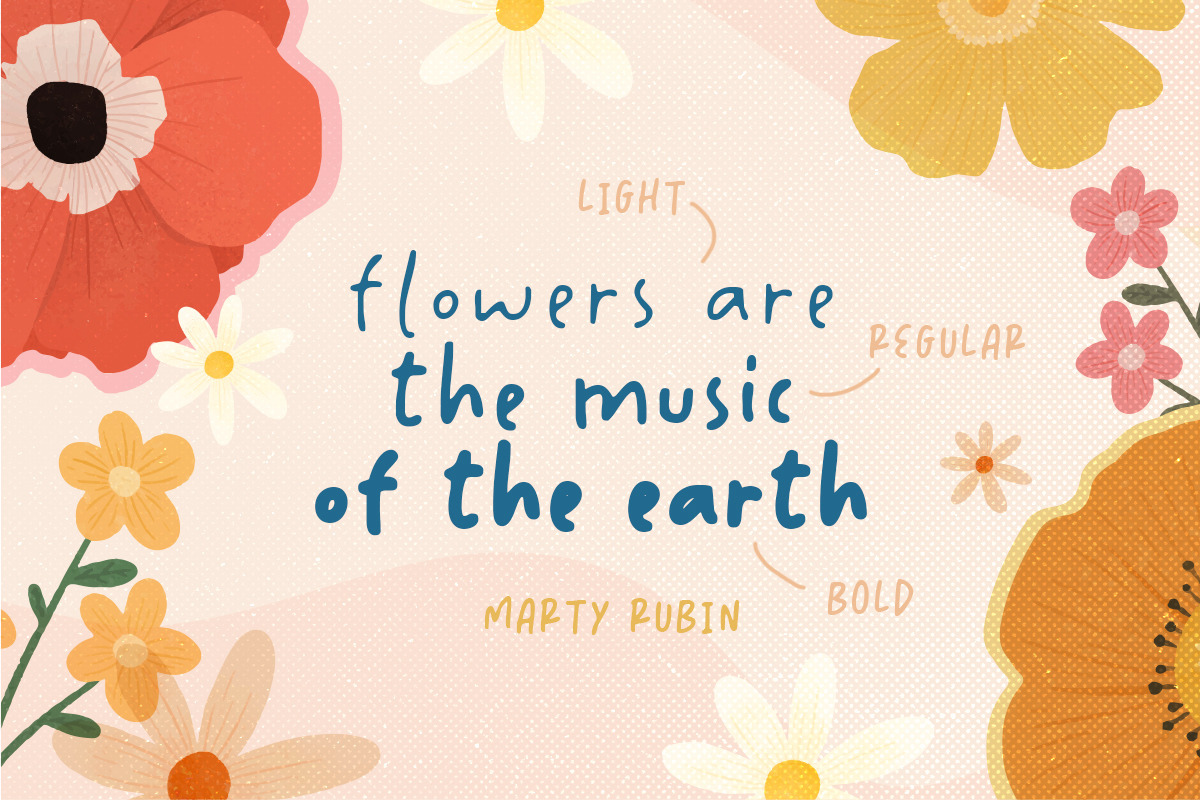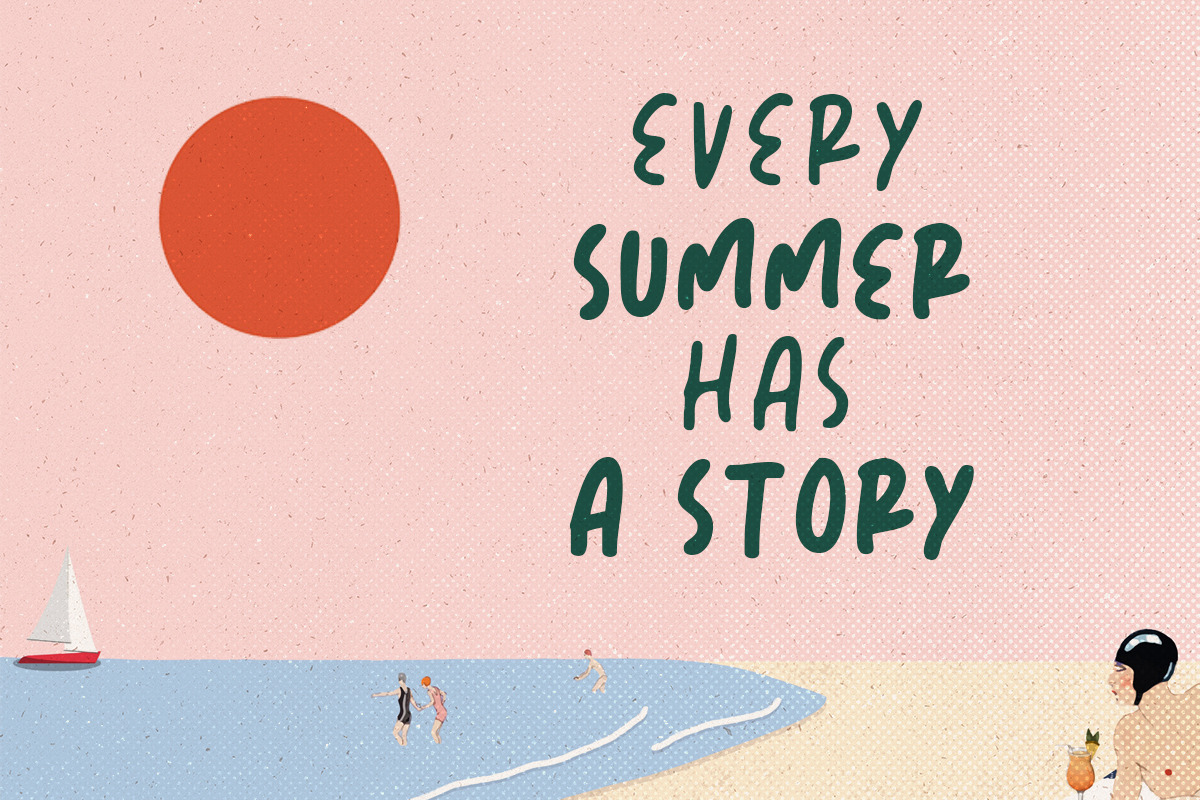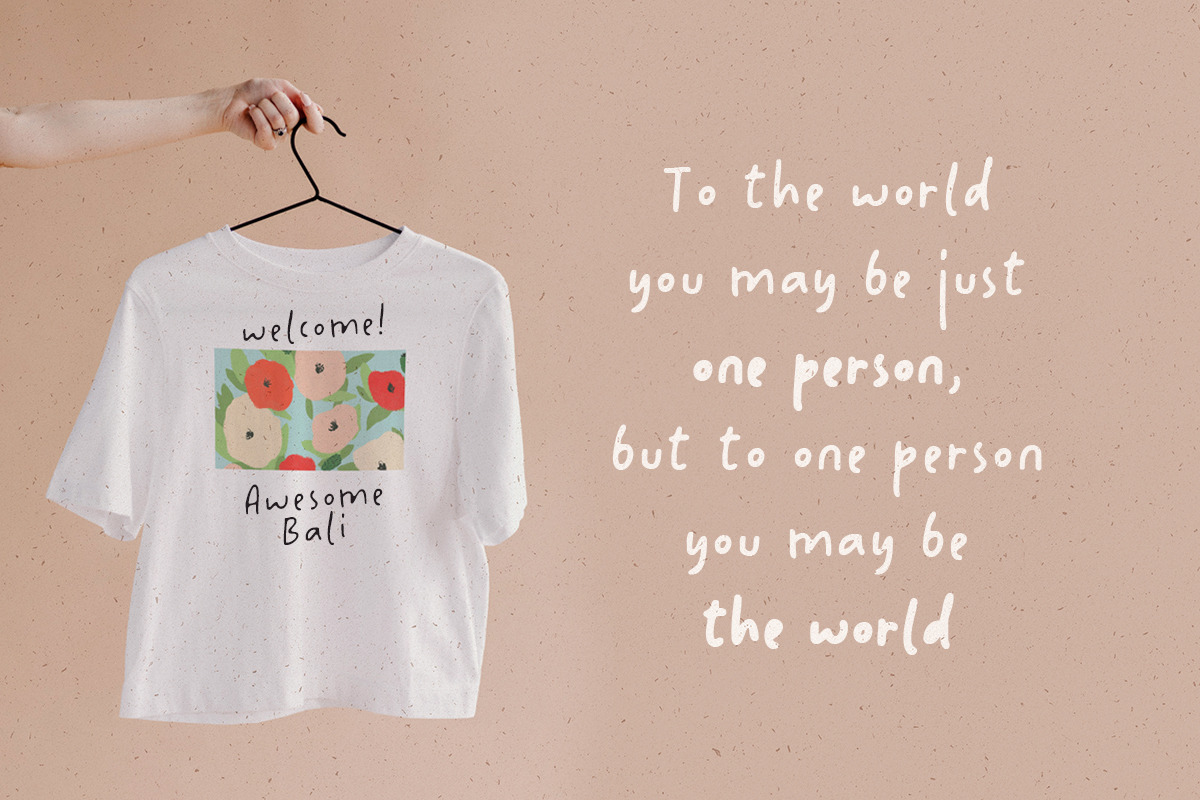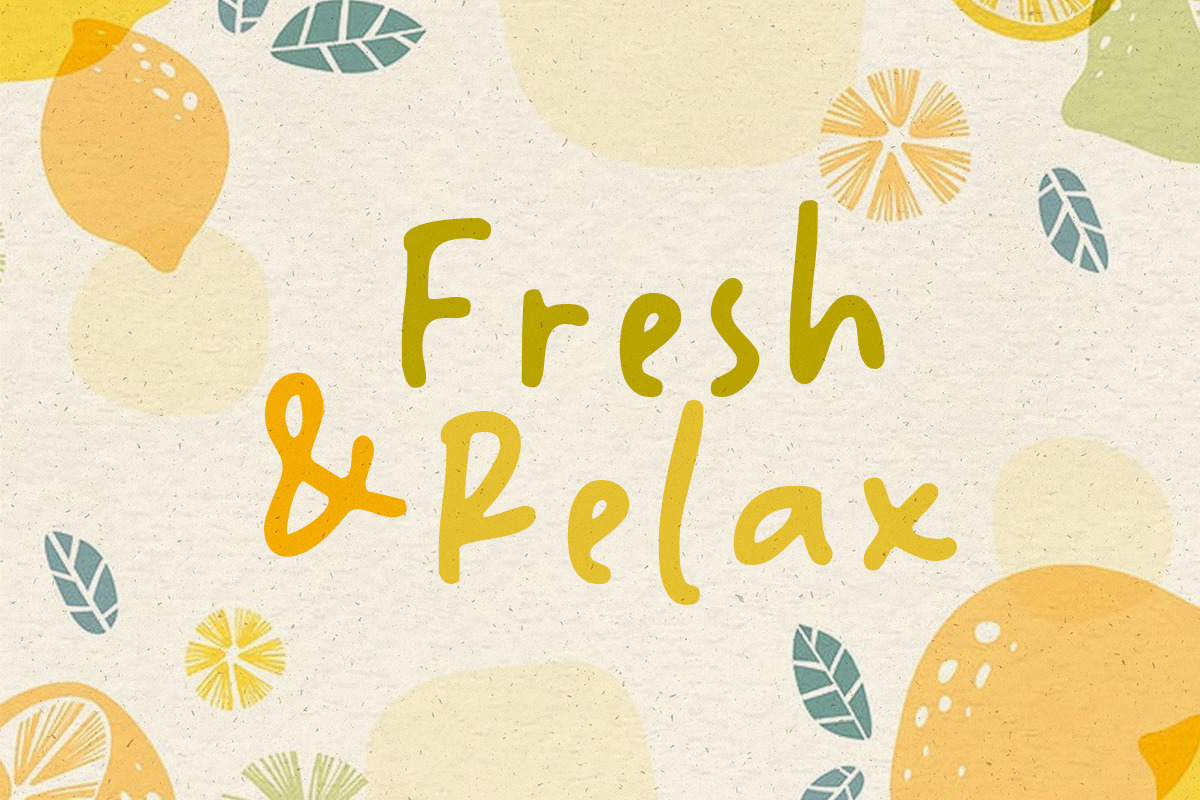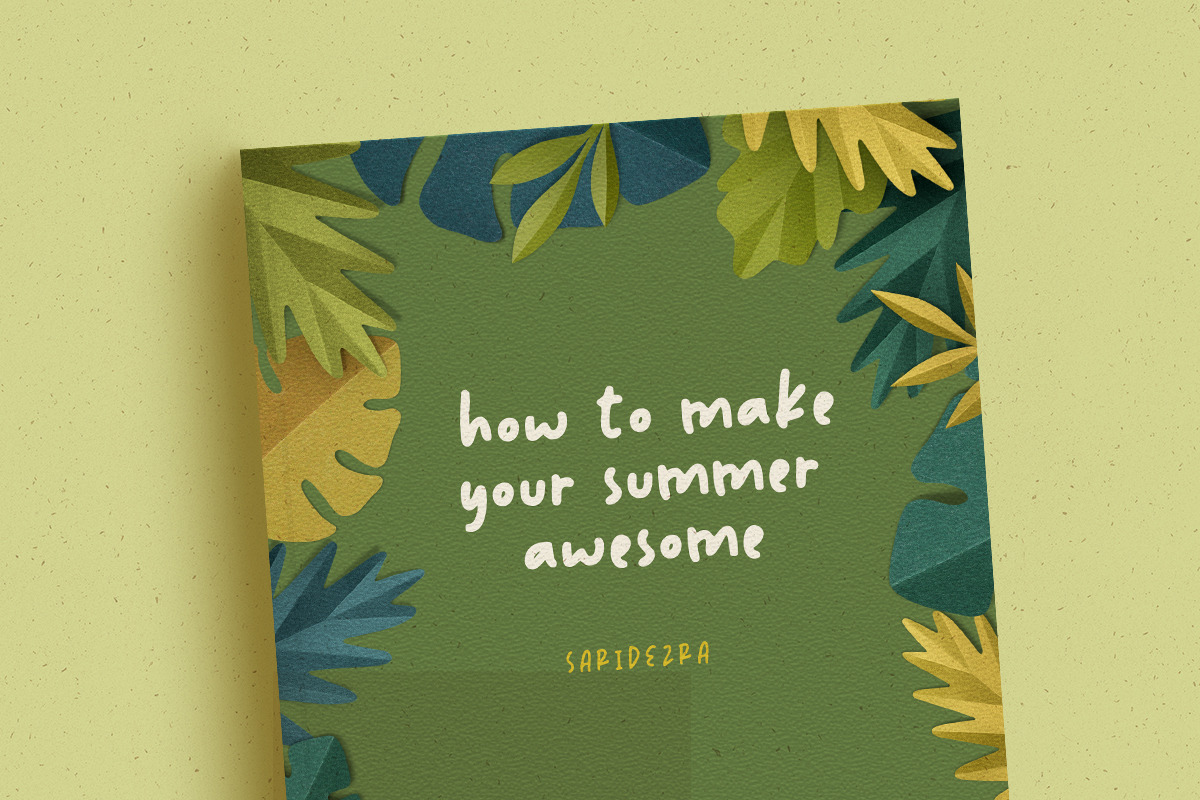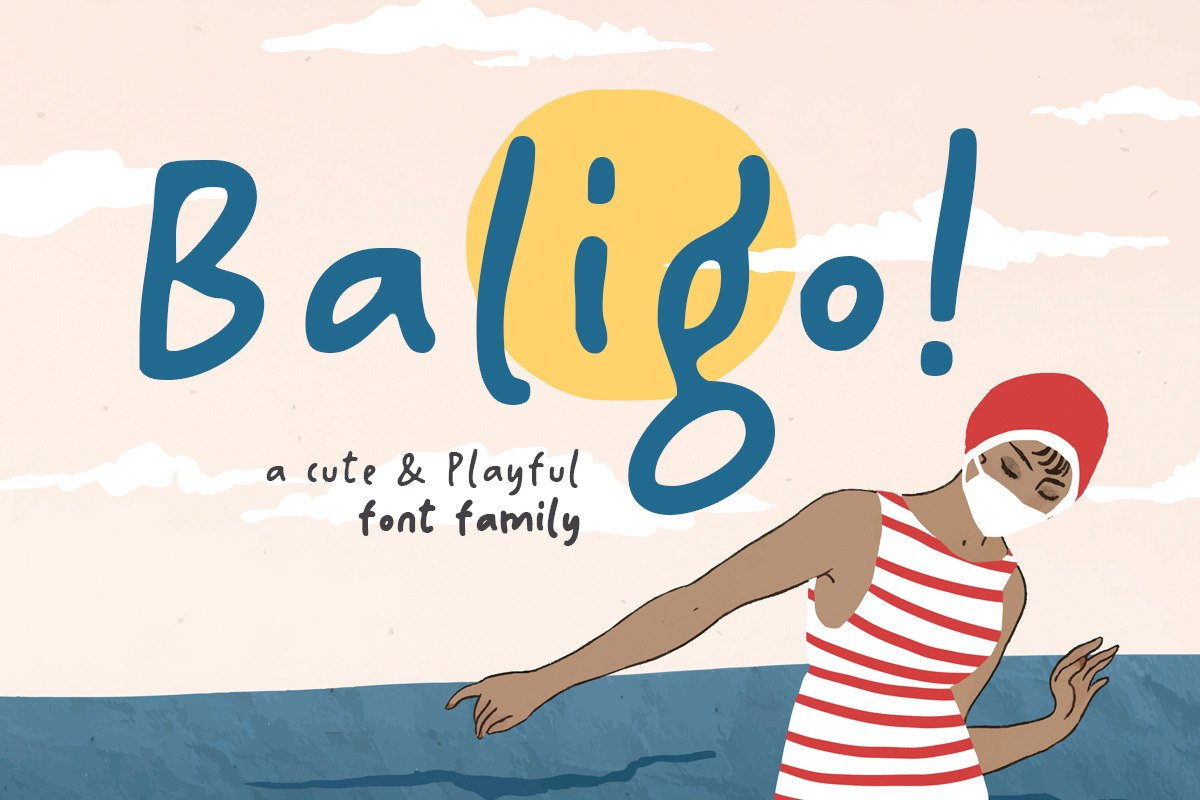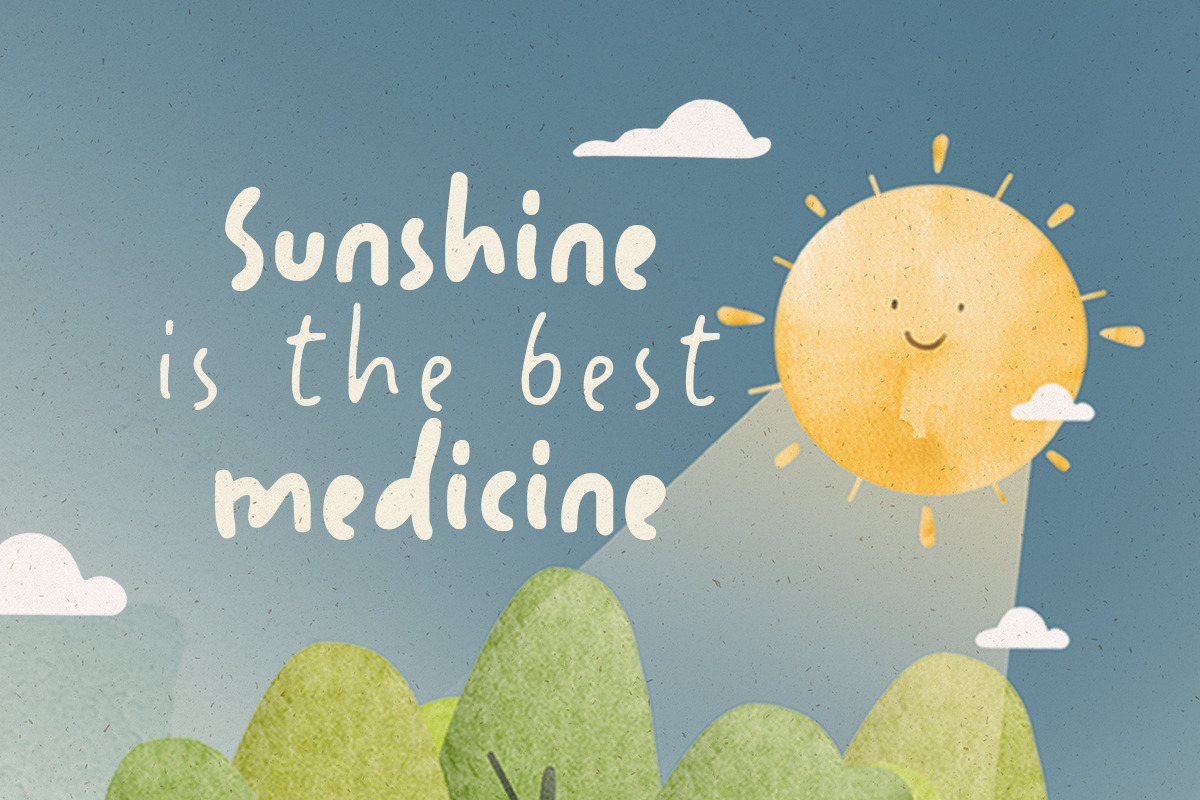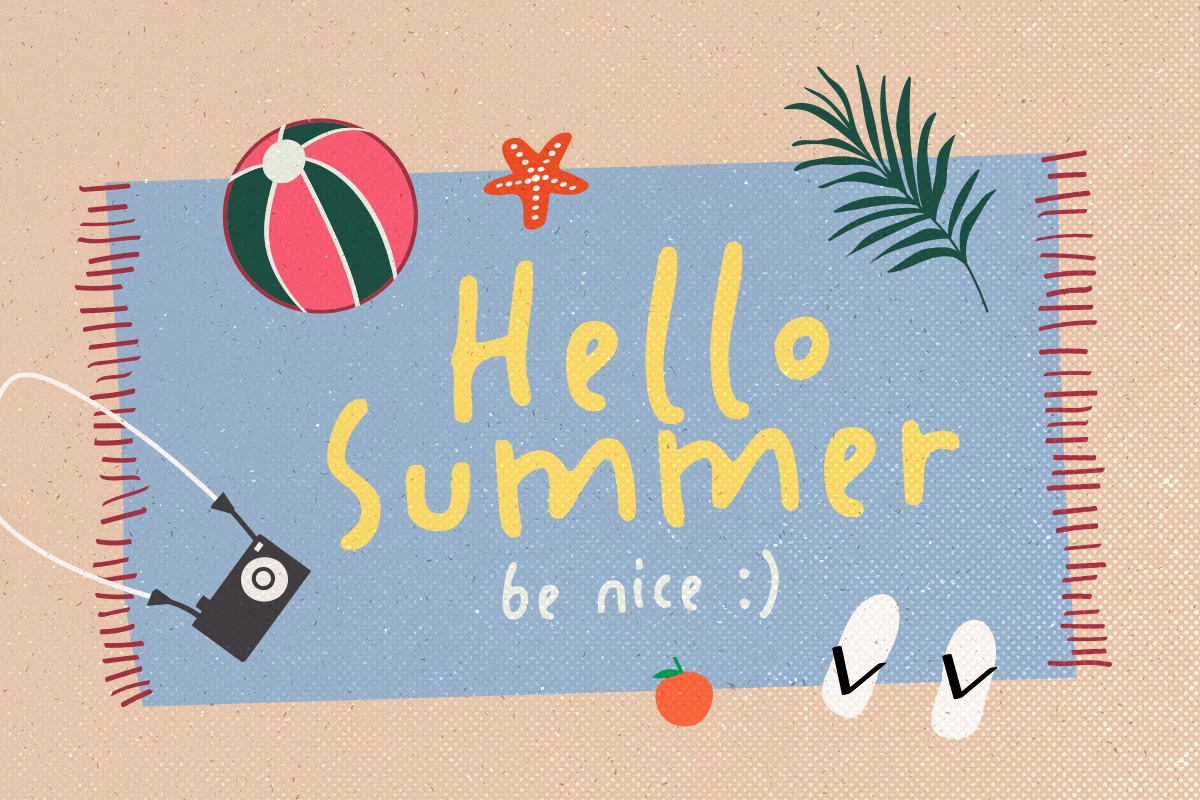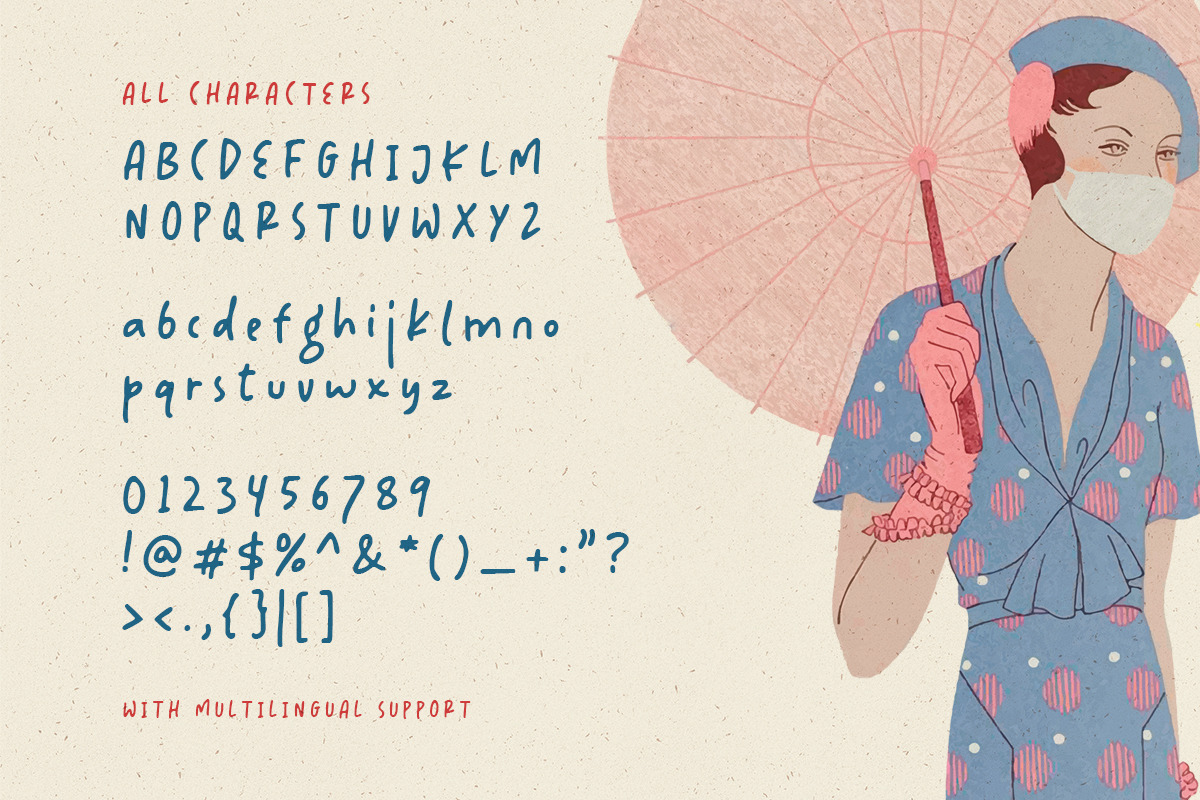
Baligo - Playful Font Family
Hello, this is Baligo, playful font family!
Baligo is a quotable font that have 3 weight style. Comes with light, regular and bold this font will make your project more bright and cheerful. This playful font is very suitable for quotes, branding, children books, and more. Baligo also support multi language!